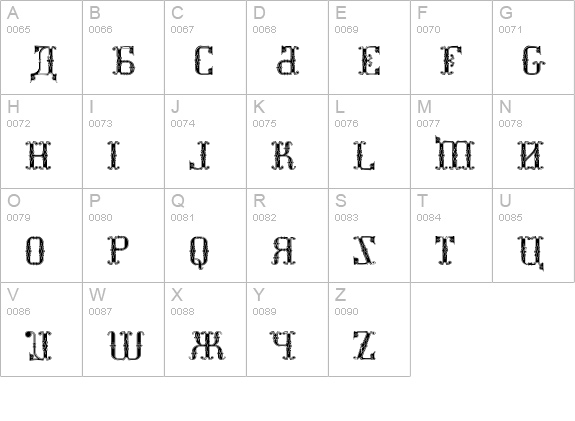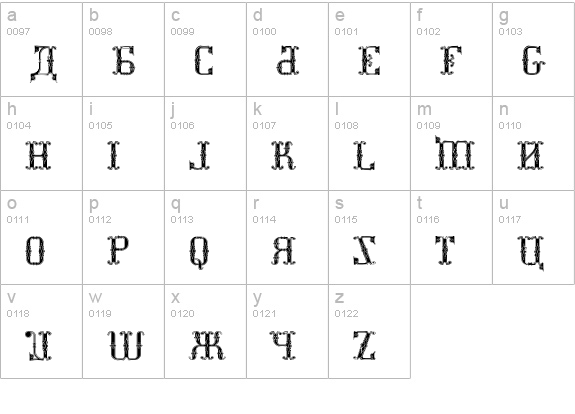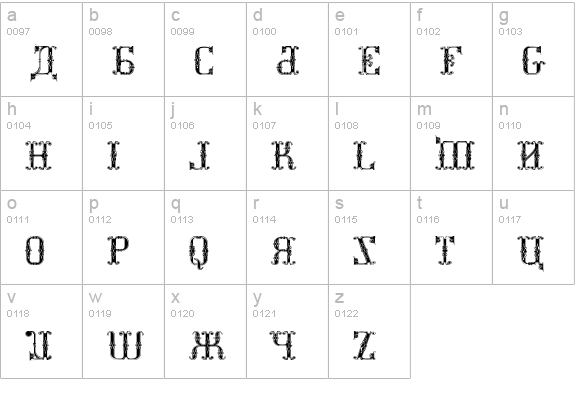
Kremlin Synod (Display Caps) Font Details
Introducing Kremlin Synod (Display Caps) font, a stunning typeface that exudes elegance and sophistication. With its bold and commanding presence, this font is perfect for adding a touch of grandeur to your designs. Whether you are working on an editorial project, branding materials, or creating eye-catching headlines, Kremlin Synod (Display Caps) font is sure to make a lasting impression. This font features beautifully crafted capital letters that are intricately designed, showcasing a balance between classic and contemporary aesthetics. Its sharp edges and clean lines create a sense of strength and authority, making it an ideal choice for projects that require a bold statement. One of the most remarkable aspects of Kremlin Synod (Display Caps) font is that it is freely available to download at FontsMarket.com. This means that you can access this magnificent typeface without any cost, allowing you to enhance your designs without breaking the bank. Its availability as a free download makes it a valuable asset for both professional designers and enthusiasts alike. With Kremlin Synod (Display Caps) font, you have the freedom to explore endless possibilities. Let your creativity soar as you incorporate this font into your projects, giving them a touch of sophistication and exclusivity. Download Kremlin Synod (Display Caps) font today from FontsMarket.com and elevate your designs to new heights.